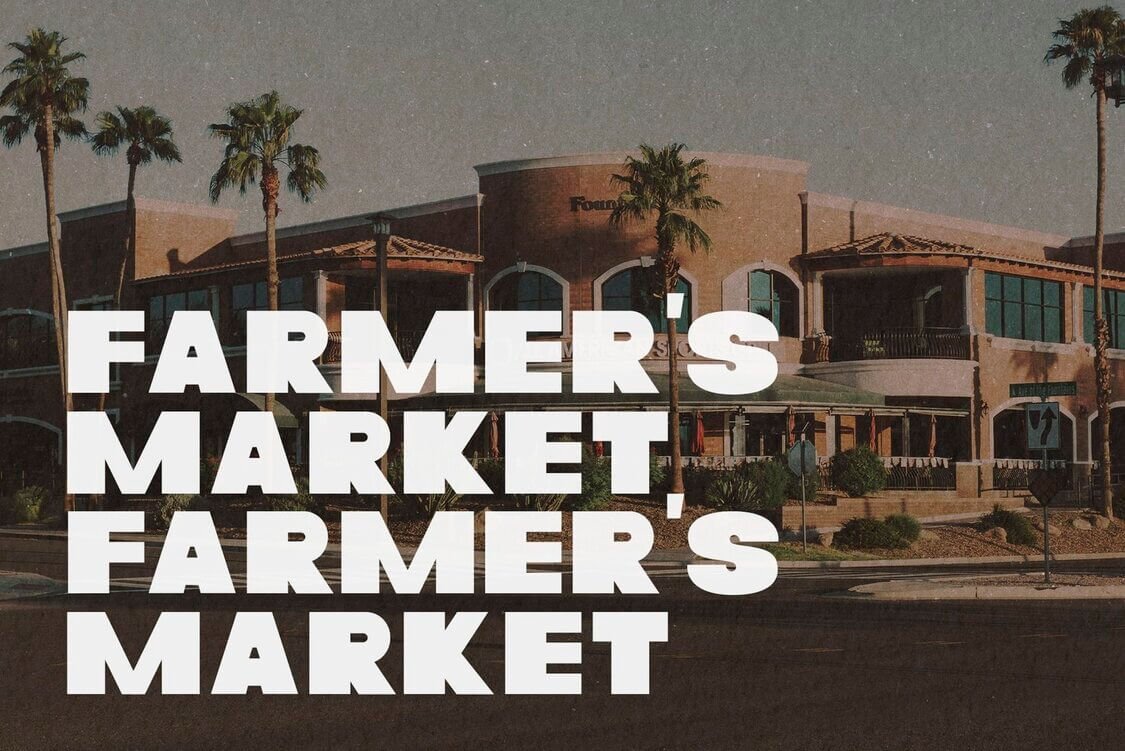
Planet Jupiter Retro Font - Bold Typeface for Creative Designs
Planet Jupiter Bold Retro Font brings the charm of vintage design into the modern era. With its bold and expressive style, this font is perfect for creating standout posters, logos, packaging, and social media designs.
Ideal for vibrant brands, creative headlines, and retro-inspired projects, Planet Jupiter adds personality and character to any design. Featuring full support for extended Latin characters, it’s versatile for global use. Embrace the retro vibe today!